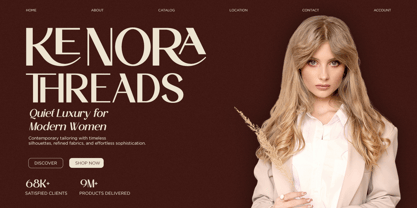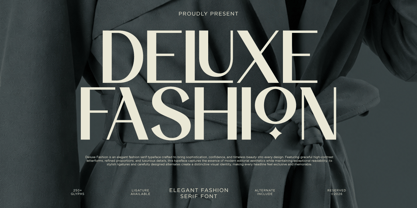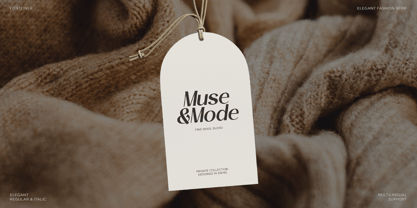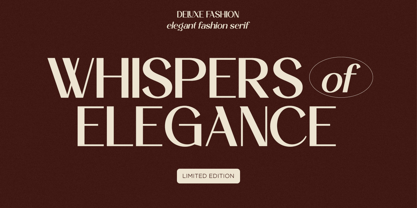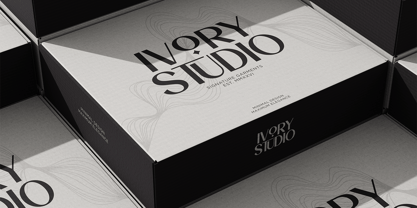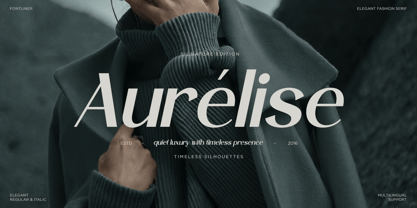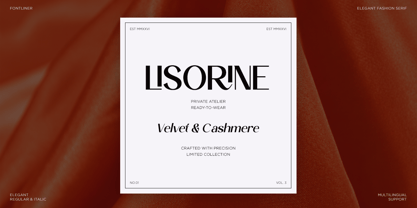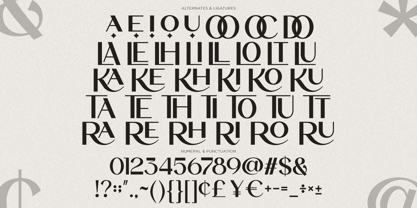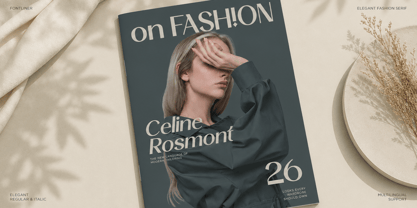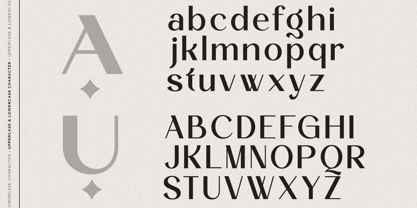
Deluxe Fashion
The Deluxe Fashion Font Family was designed by Ghina Luthfiarieska and published by Font Liner. Deluxe Fashion contains 2 styles and family package options. More about this family
Introducing Deluxe Fashion, a modern luxury sans font crafted to bring elegance, confidence, and contemporary style to every design. With its clean lines, refined proportions, and sophisticated aesthetic, this typeface creates a premium visual identity that stands out across both digital and print media. Designed for designers who value simplicity with a luxurious touch, it delivers a polished and professional appearance in every application.
Perfect for fashion branding, luxury logos, beauty products, boutique packaging, cosmetics, editorial layouts, magazines, social media content, lifestyle campaigns, and premium marketing materials. Its modern sans style offers excellent readability while maintaining an exclusive, high-end look that enhances both minimalist and bold creative concepts.
Whether you're building a memorable brand identity, designing elegant packaging, creating stylish advertising, or producing eye-catching editorial designs, Deluxe Fashion provides the versatility and sophistication needed for professional results. This font is an essential choice for designers seeking clean, modern, and luxurious typography.
• Regular and Italic
• Stylistic Ligatures
• Stylistic Alternates
• Uppercase and Lowercase
• Number, Symbol, and Punctuation
• Multilingual Support